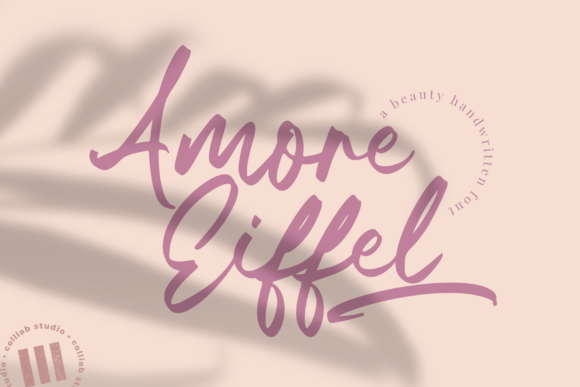
Adorn your designs with the allure of romance and elegance with Amore Eiffel Font, a mesmerizing handwritten font crafted to enchant your creative endeavors. Its delicate strokes dance across the page, like a whispered sonnet carried by the Parisian breeze. Amore Eiffel's characters are a symphony of beauty, meticulously balanced to complement a myriad of design aesthetics.
Unleash your creativity and witness the transformation as Amore Eiffel elevates your wedding invitations, branding projects, and social media posts to new heights of sophistication. Its graceful curves and elegant flourishes add a touch of timeless charm to any project, making it the perfect choice for those seeking a font that exudes both beauty and finesse.
Immerse yourself in a world of endless possibilities with Amore Eiffel. Its versatility knows no bounds, seamlessly adapting to a wide array of design styles. From whimsical wedding stationery to sleek logos and captivating social media graphics, Amore Eiffel effortlessly enhances your creations with a touch of timeless elegance.
Step into a realm where your words are transformed into works of art, where every letter carries the weight of emotion and grace. Amore Eiffel is more than just a font; it's an invitation to express yourself with creativity and passion. Let your imagination soar as you explore the endless possibilities that await you with this enchanting handwritten font.